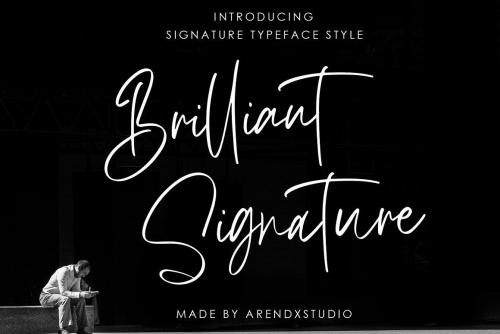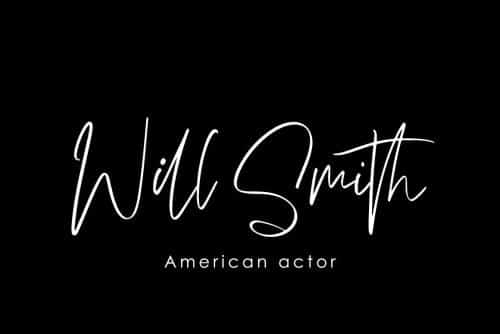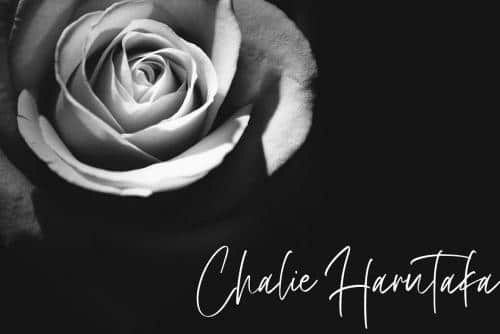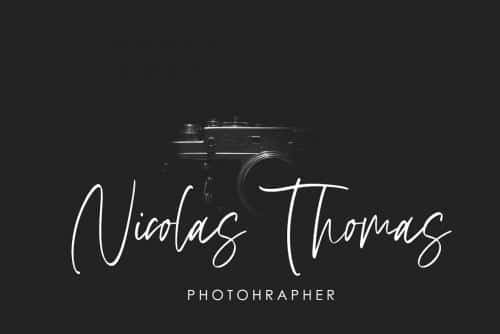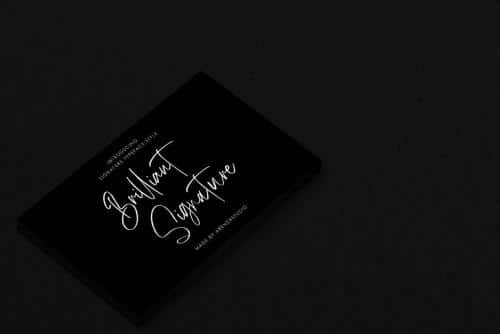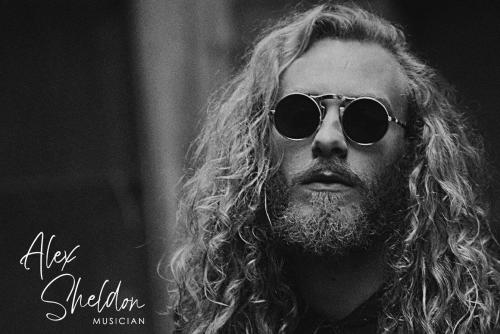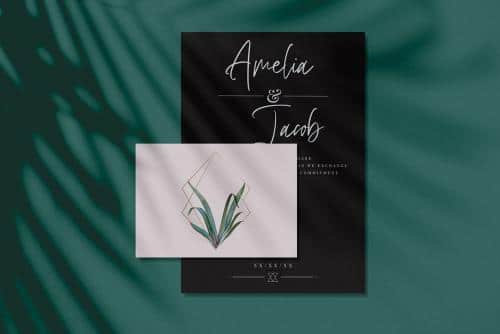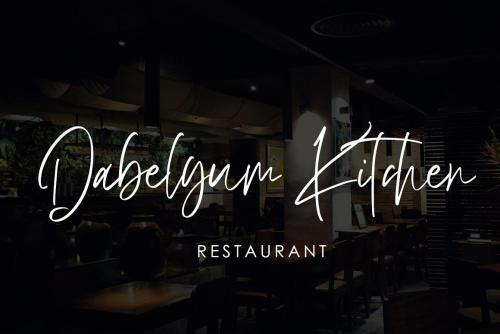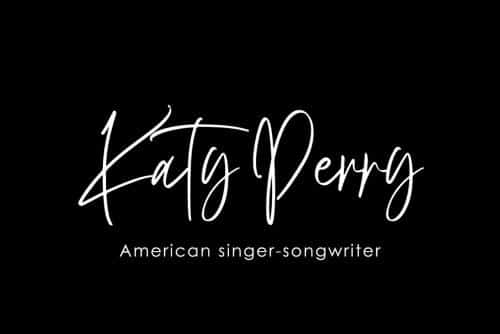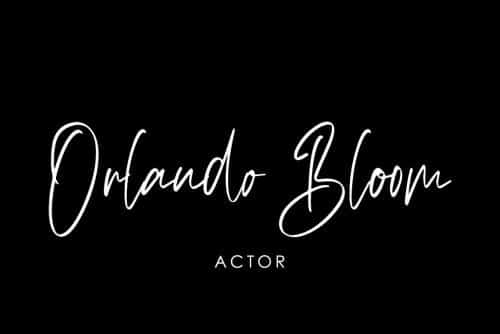
Introducing Brilliant Signature, a handwritten font which is very elegant and modern for you to use and your design interests be it for logos, branding names, posters, podcasts and so on. This is perfect for you all.